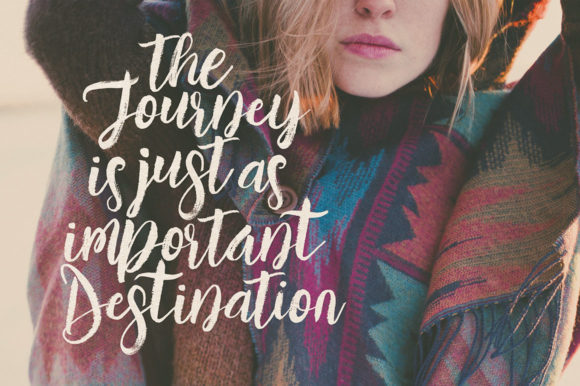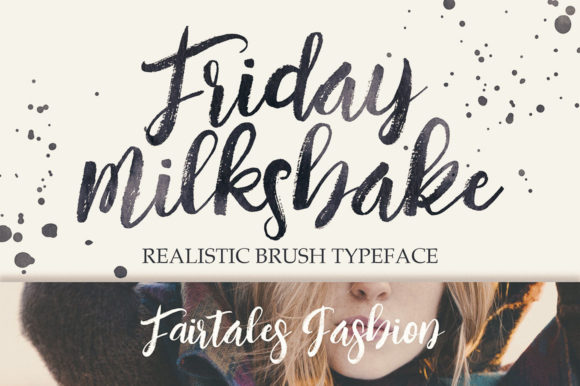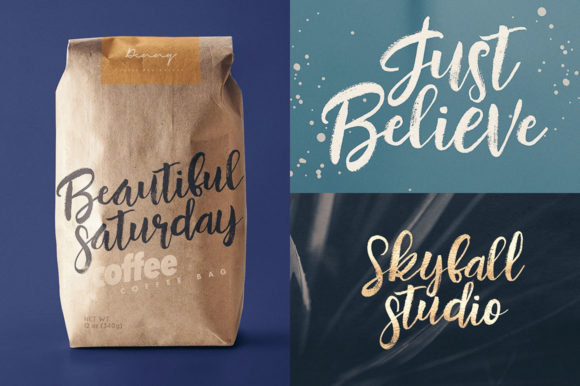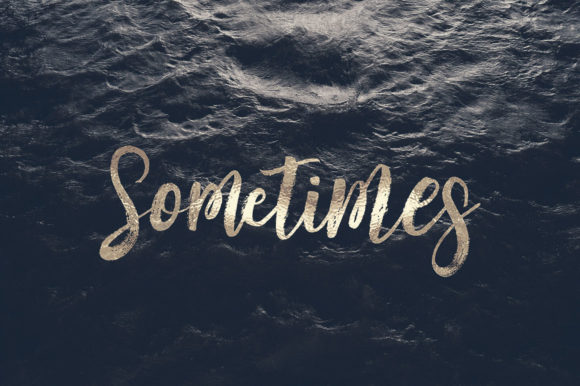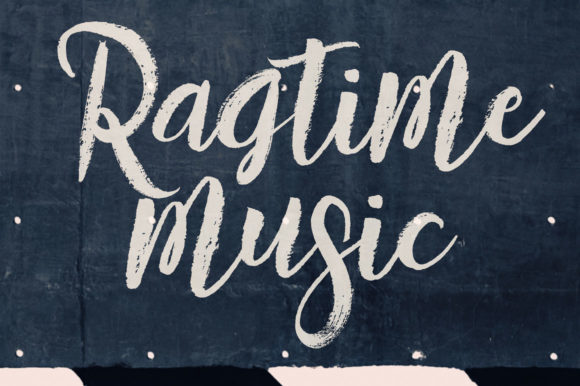
Taksim Font
The Taksim is a cool handwritten brush style font with 2 font alternatives for your new projects. It’s great for grunge or artistic projects!